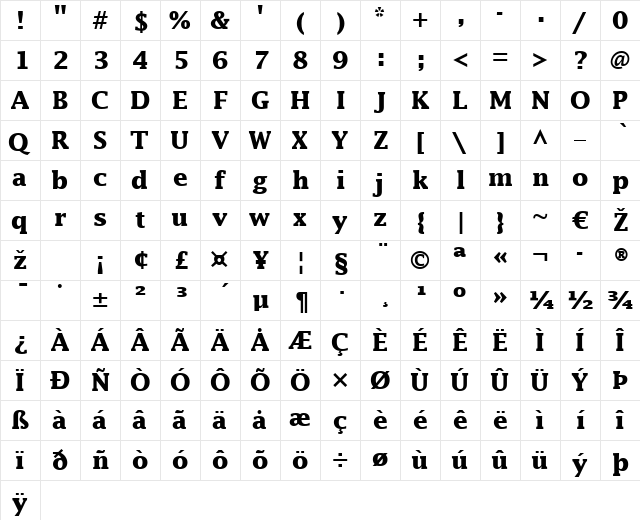
Lucida Bold
Design Context for Lucida Typeface
Lucida takes a measured approach to typography — its balanced proportions and neutral character make it a reliable workhorse for both digital and print work. Its bold stroke weight gives it real presence on the page.
Pro Tip: Use Lucida in both headline and body roles to test its range before committing to a single application.